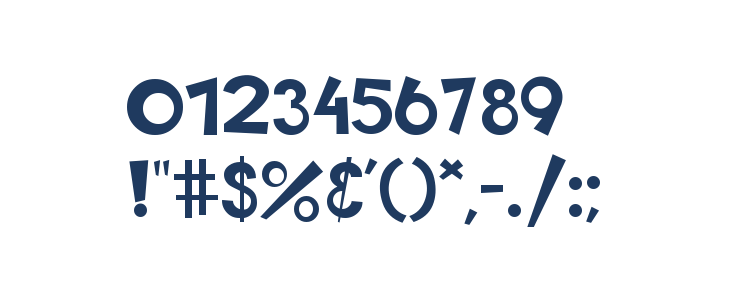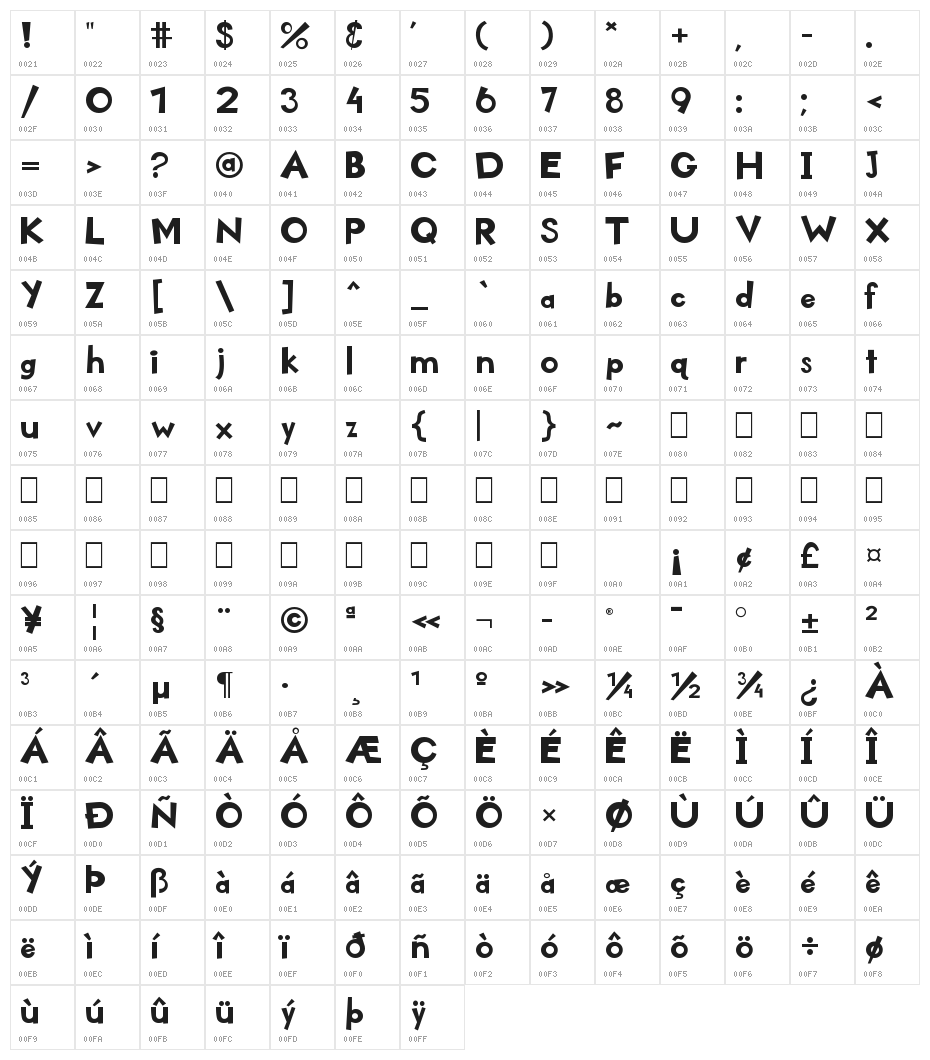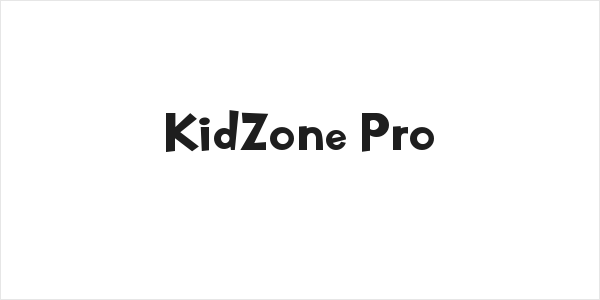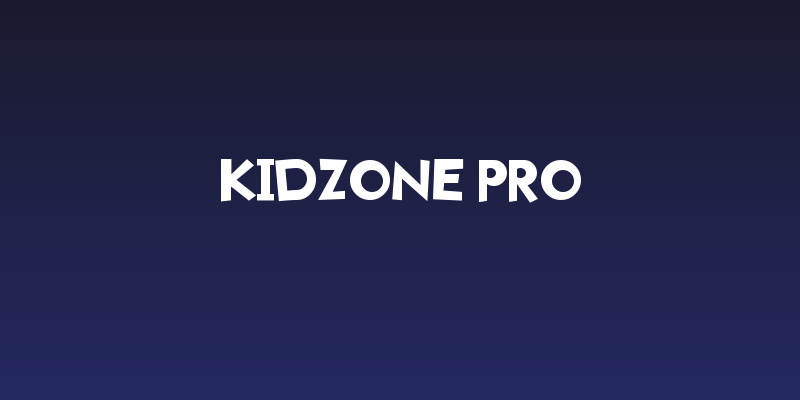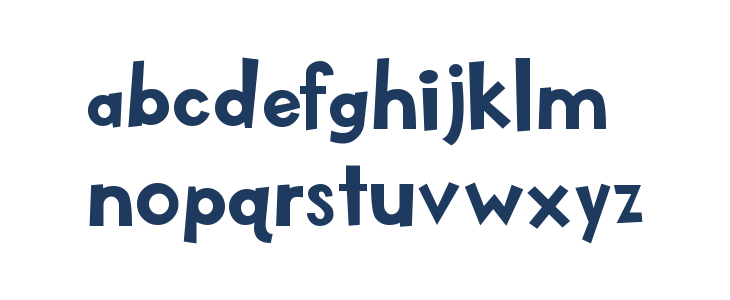
KidZone Pro Font
KidZone Pro Description
This playful and bold font features a whimsical design with exaggerated curves and angles, making it ideal for children's content. The uppercase and lowercase letters are distinct, with a slightly uneven baseline that adds to its charm. Numbers and special characters maintain the same playful style, ensuring consistency across all text elements. The font's thick strokes and rounded edges give it a friendly and approachable appearance, perfect for engaging a young audience. Its unique style is both eye-catching and easy to read, making it suitable for various creative projects.
| Use Case | Headlines, Logos, Children's content |
| Proposed Projects | Ideal for children's books, educational materials, toy packaging, and playful branding. |